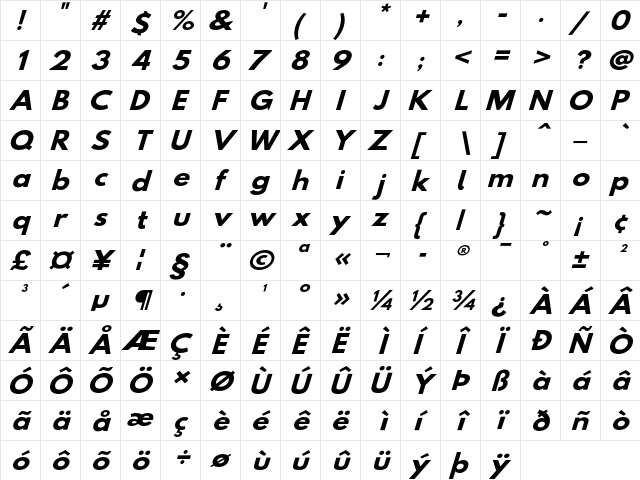
Hussar BdSuprExtOblThree
Design Context for Hussar Typeface
Hussar is a composed and adaptable typeface that performs quietly and consistently across a wide range of design contexts.